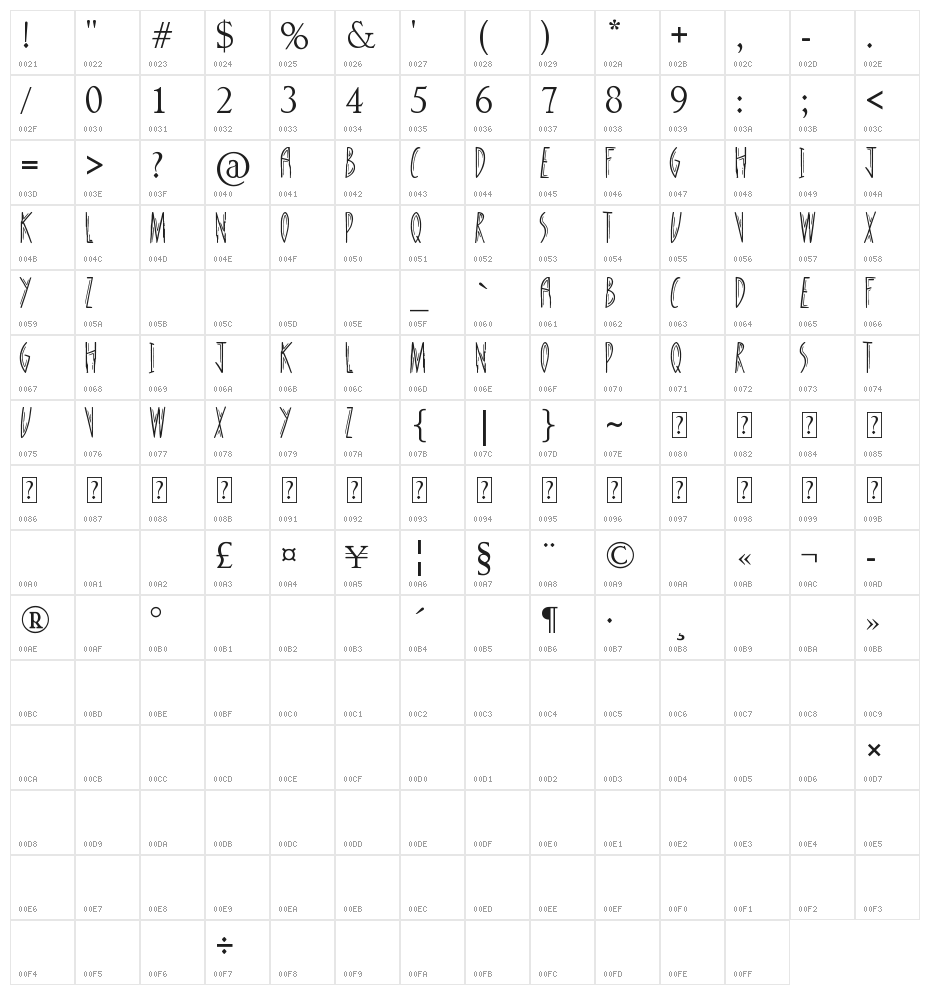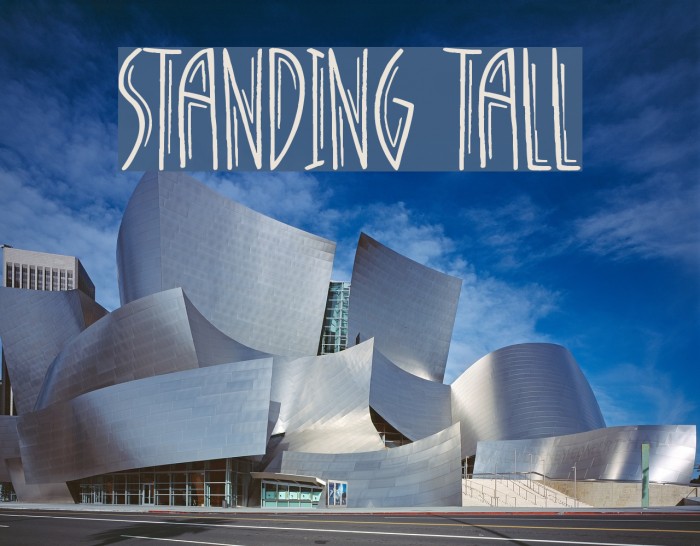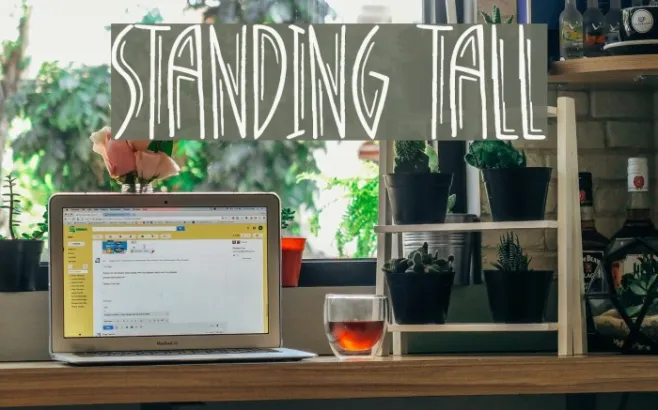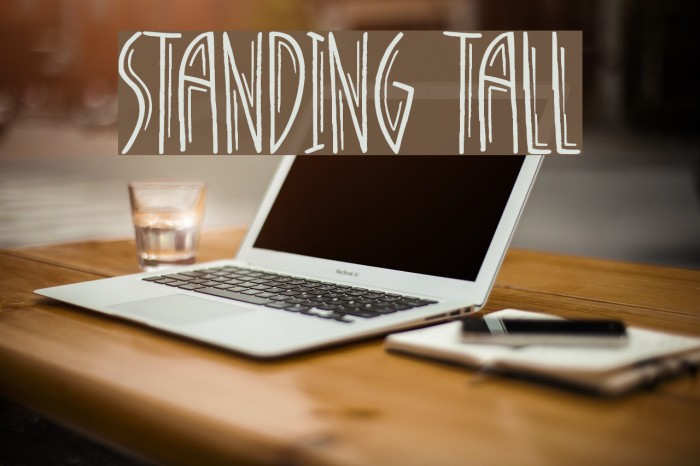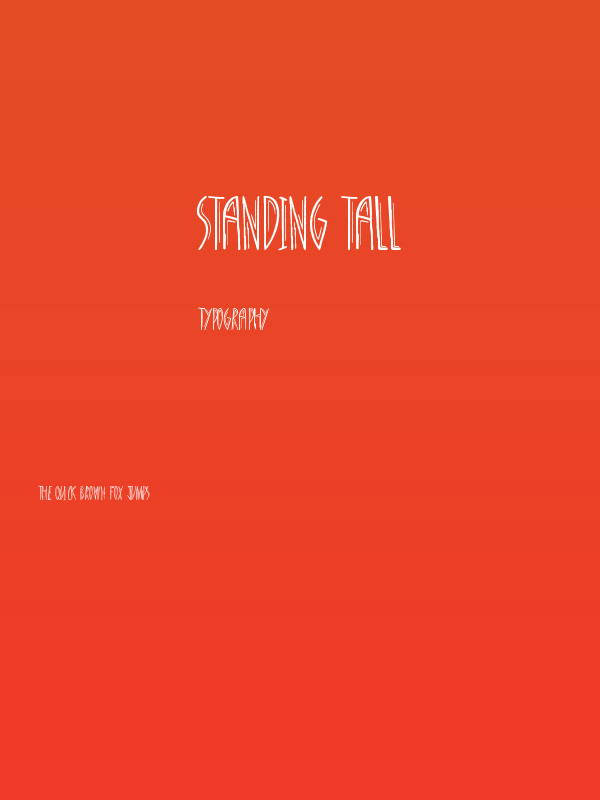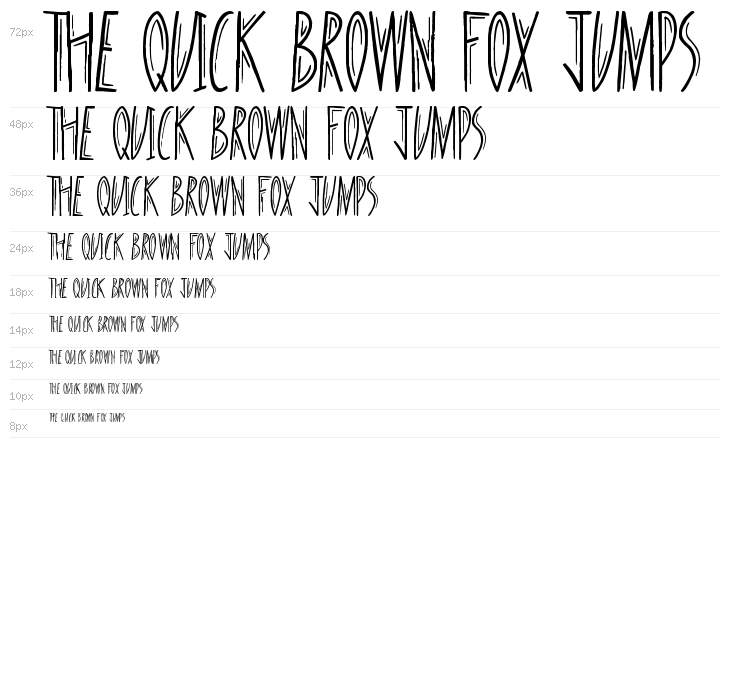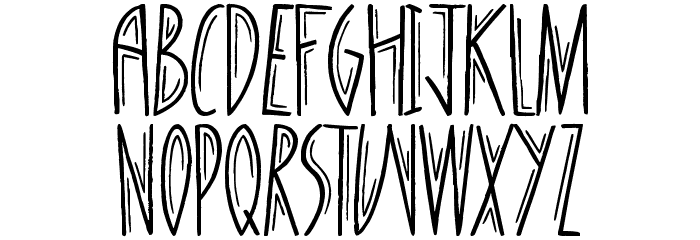
Standing Tall Font
Standing Tall Description
This font features a tall, narrow design with a hand-drawn aesthetic. The uppercase letters are elongated and slightly irregular, giving a whimsical and artistic feel. The lowercase letters maintain the same tall and narrow structure, creating a cohesive look. The numbers are bold and clear, contrasting with the more delicate letterforms. Special characters are included, matching the overall style with a playful twist. The font's unique character makes it suitable for creative projects that require a touch of personality.
| Use Case | Headlines, Logos, Artistic projects |
| Proposed Projects | Ideal for posters, invitations, artistic branding, and creative headlines. |